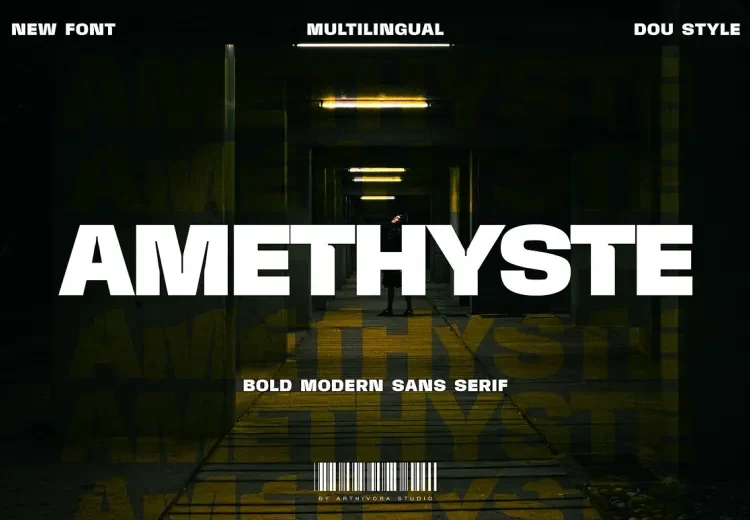
Amethyste Font
Amethyste is an elegant and modern sans serif font, perfect for creating standout designs for logos, magazines, brochures, and social media. Its refined appearance adds a touch of sophistication to any project.